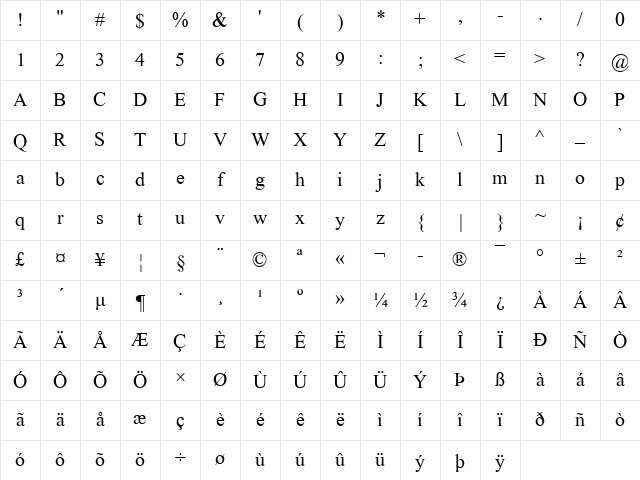
Shonar Bangla Regular
Design Context for Shonar Bangla
Shonar Bangla is a composed and adaptable typeface that performs quietly and consistently across a wide range of design contexts.
Pro Tip: Use Shonar Bangla in both headline and body roles to test its range before committing to a single application.